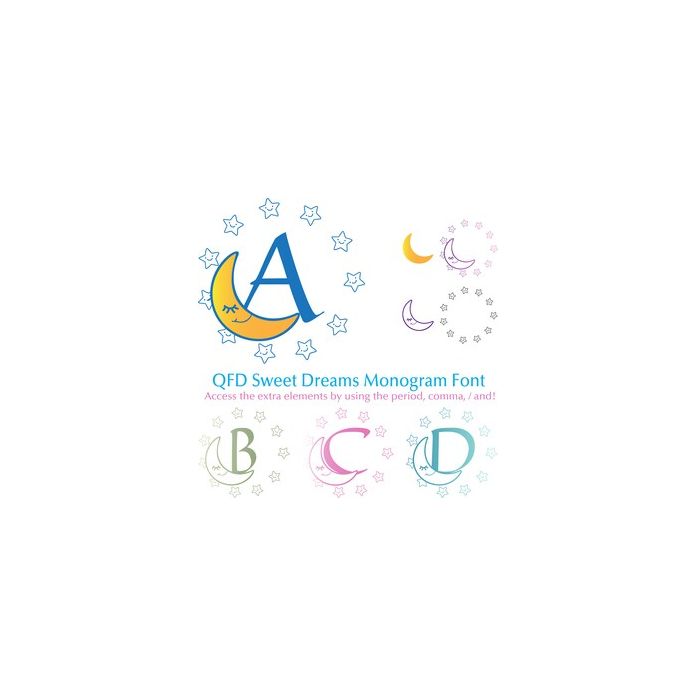
Use the period, comma, / and ! to access the extra elements. Perfect for gift tags, cards, pillows, invitations, wall art, t-shirts, mugs and anything else you can think of. See our detailed monograms tutorial by clicking the Instructions button. If you have any questions, please feel free to contact me!